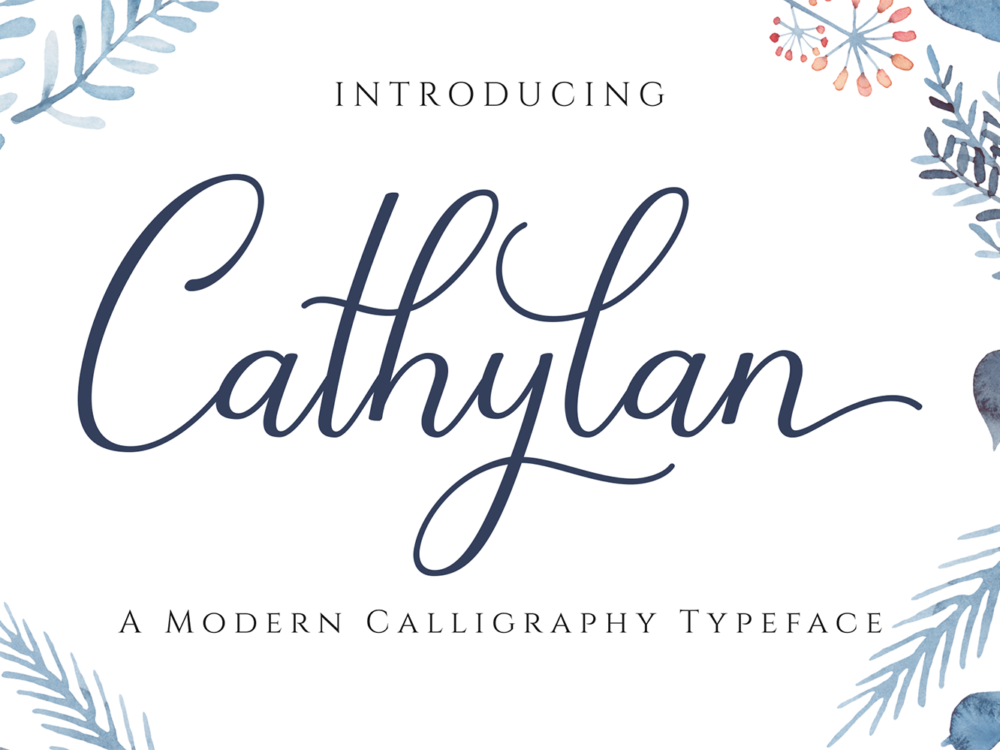
Cathylan Script Free Font
Cathylan Script Free Font is a beautiful handwritten typeface that stands out among others for its elegant touches. This font will help you to realize any of your design projects and make it recognizable and interesting. Create designs for posters, invitations, postcards, clothing prints, and more using the Cathylan Script Free Font. So, if you wish to access more features and use it for commercial work, go get the full version as well.